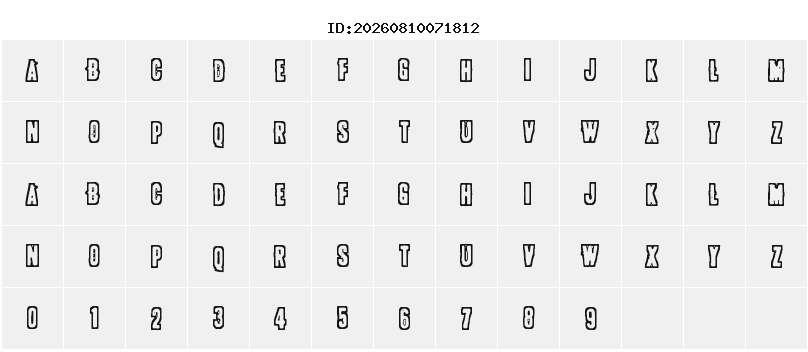
• Font Name: POLLUX9300
About POLLUX9300.ttf
POLLUX9300.ttf is a modern, elegant sans-serif font designed for ultimate readability and visual harmony. Perfect for branding, headlines, web design, and print materials.